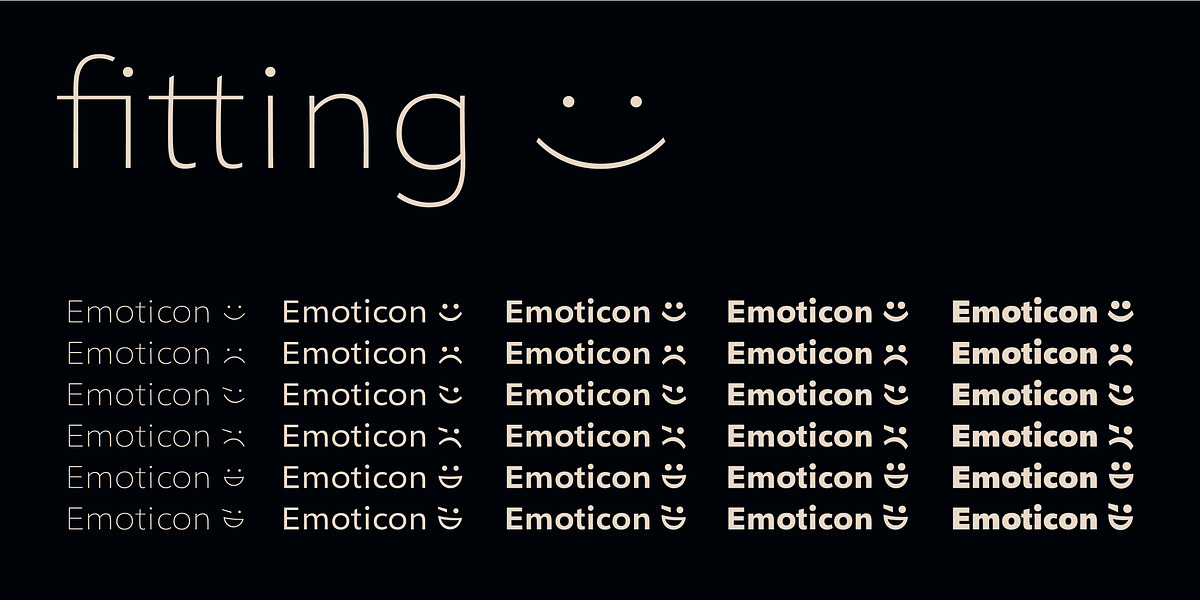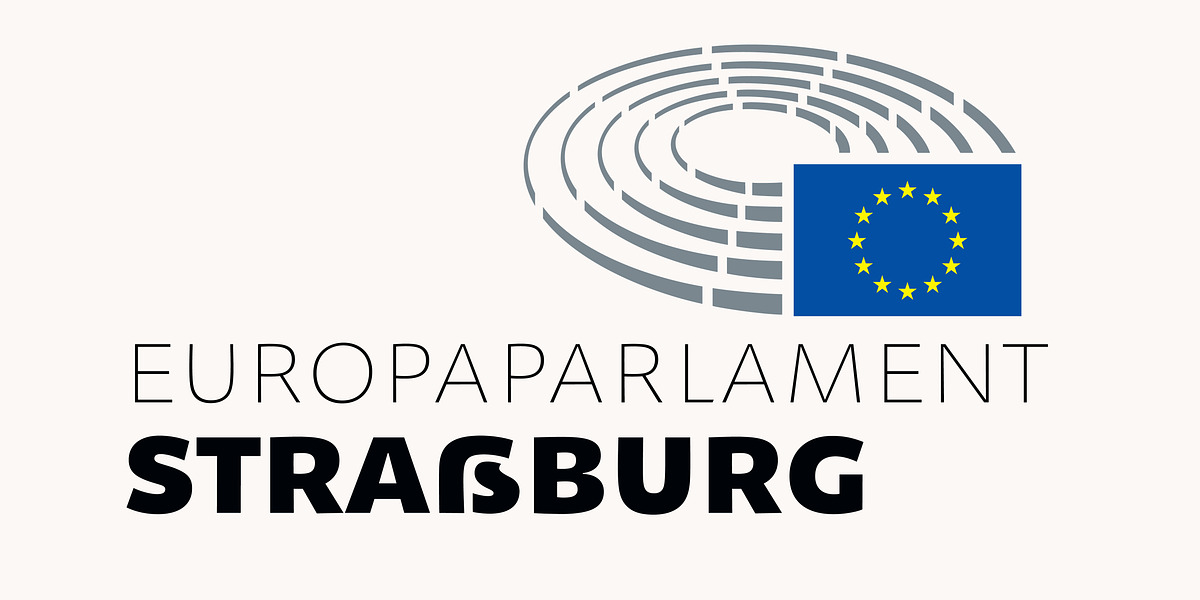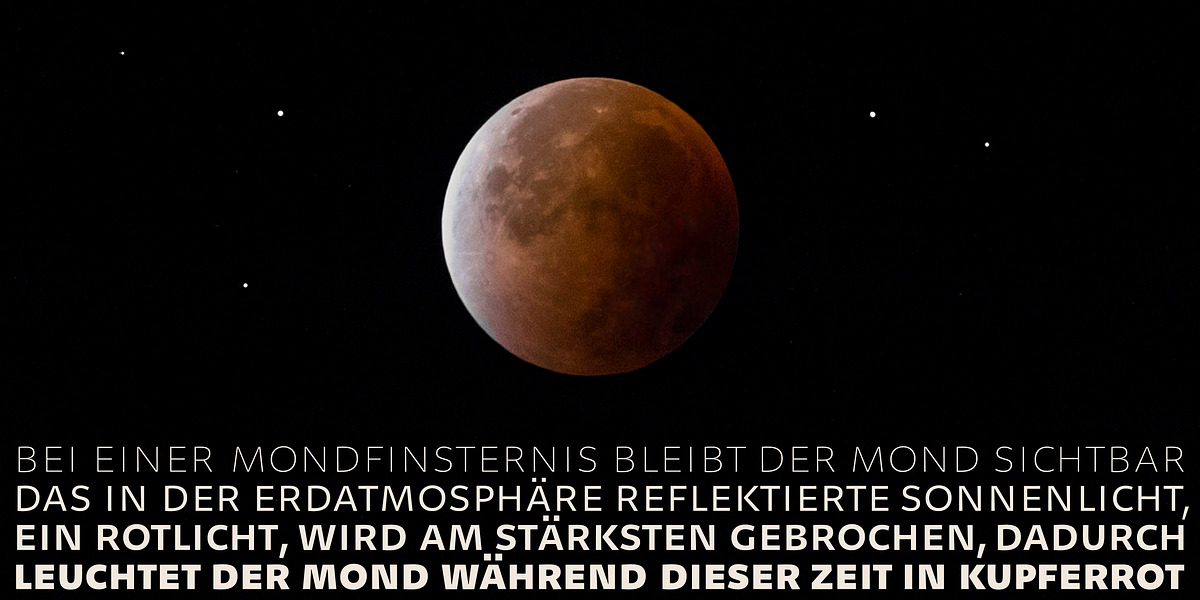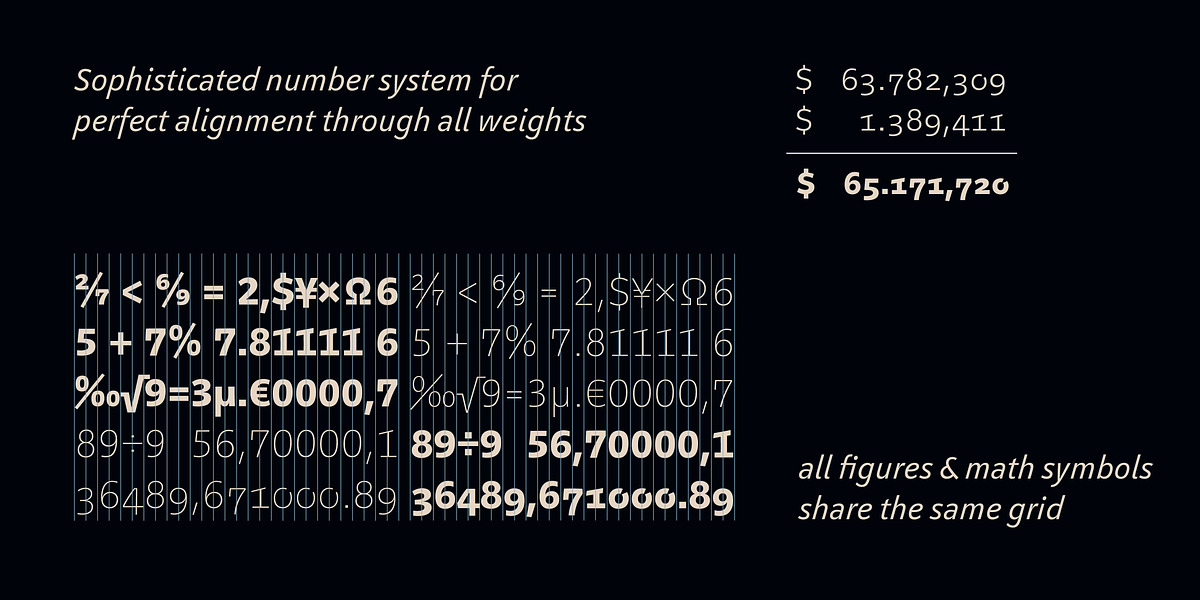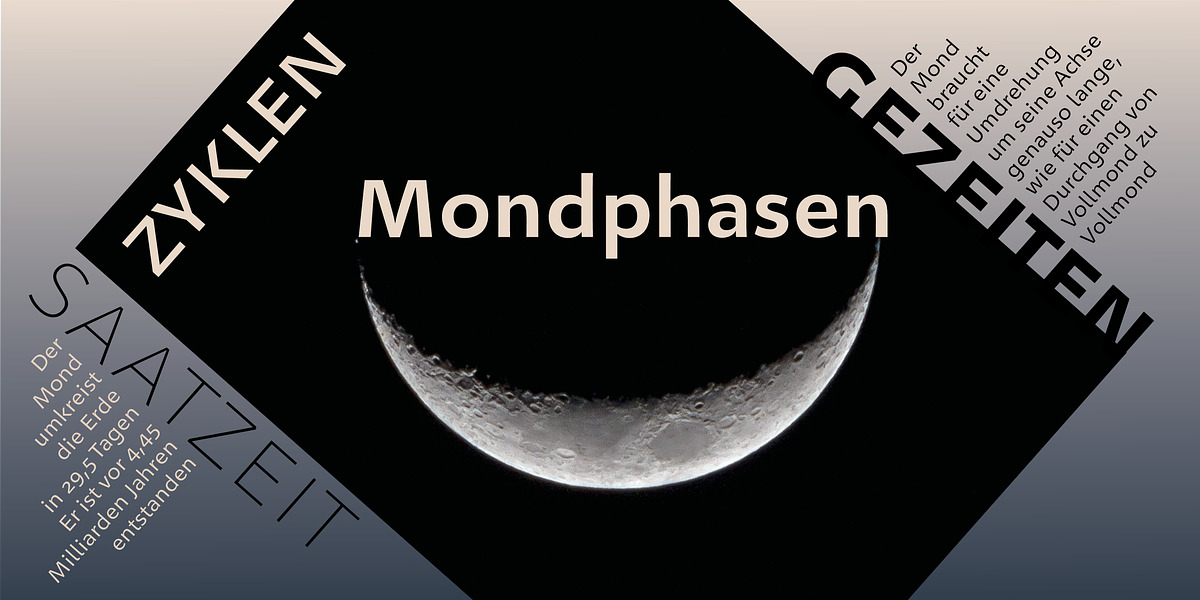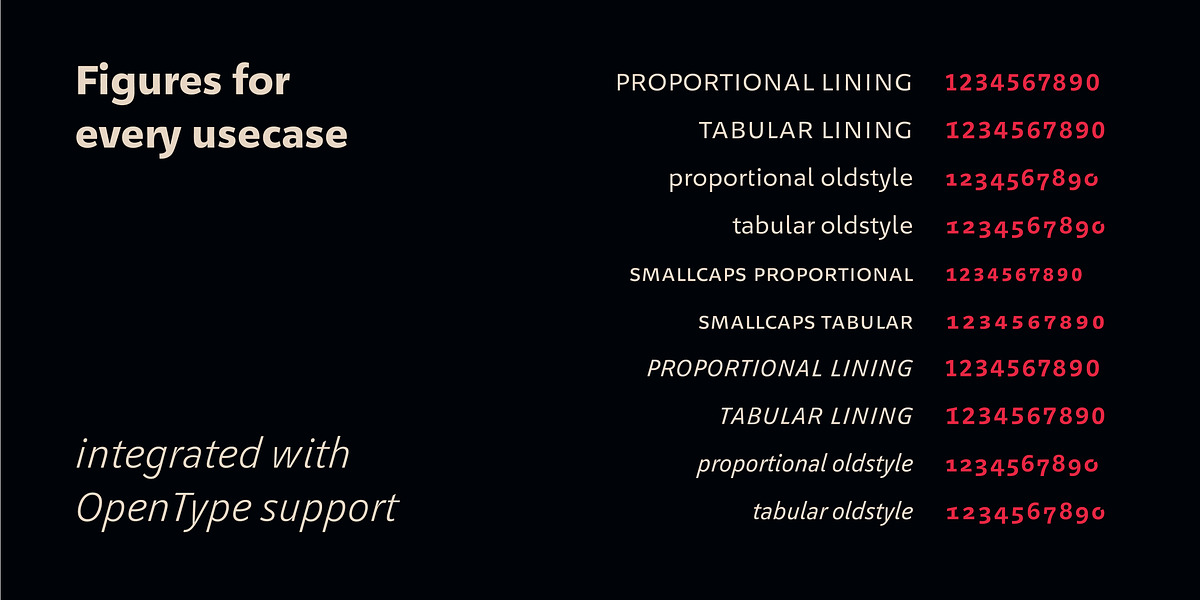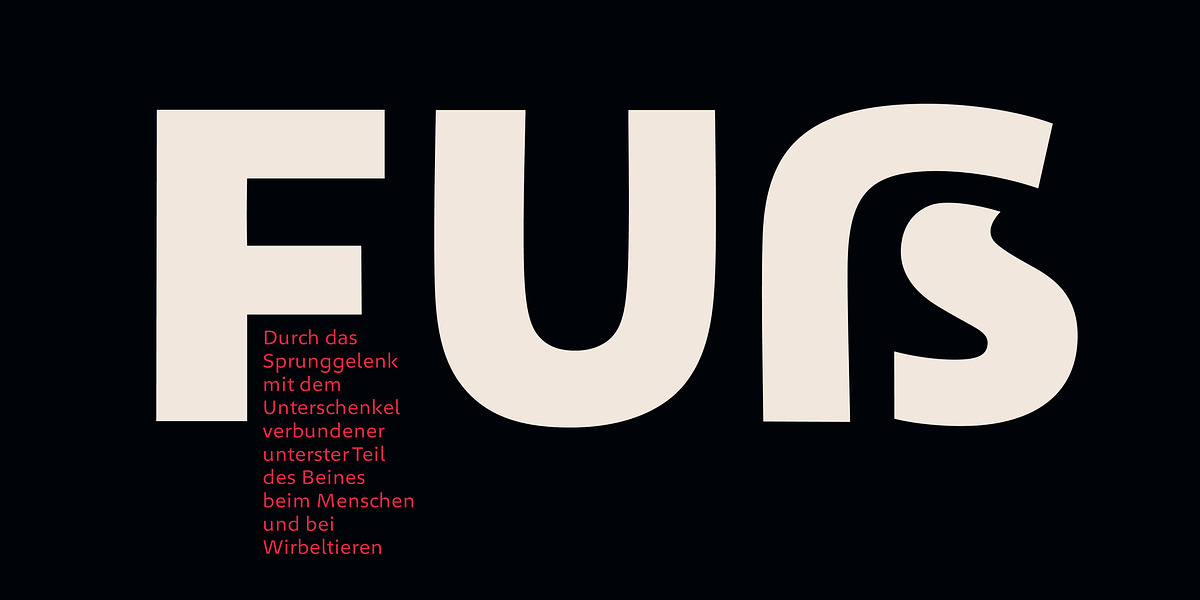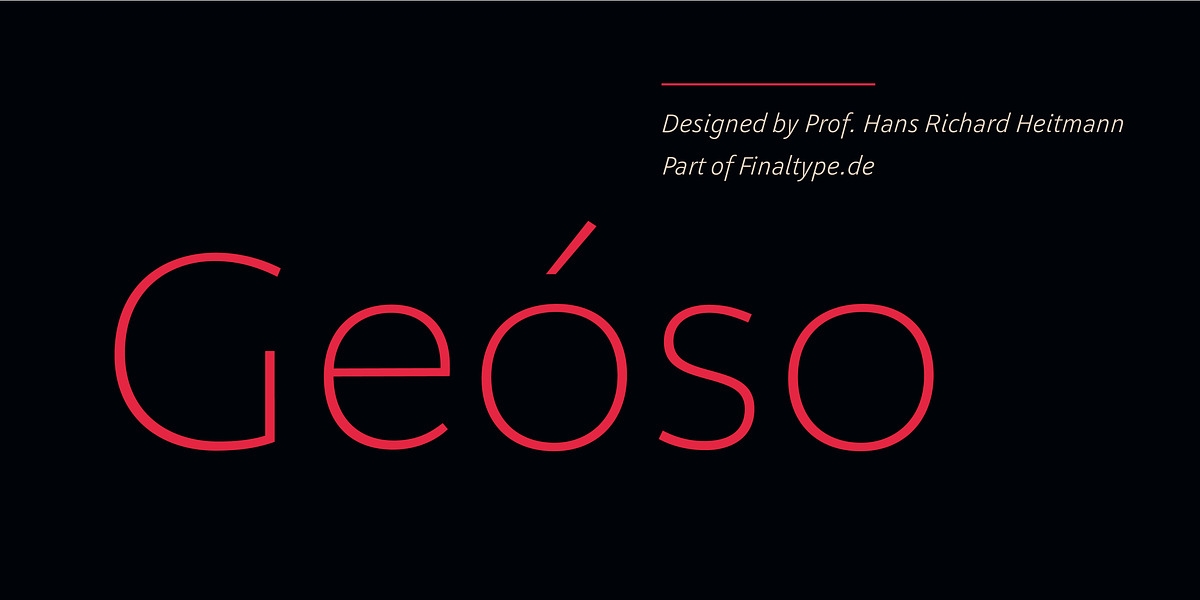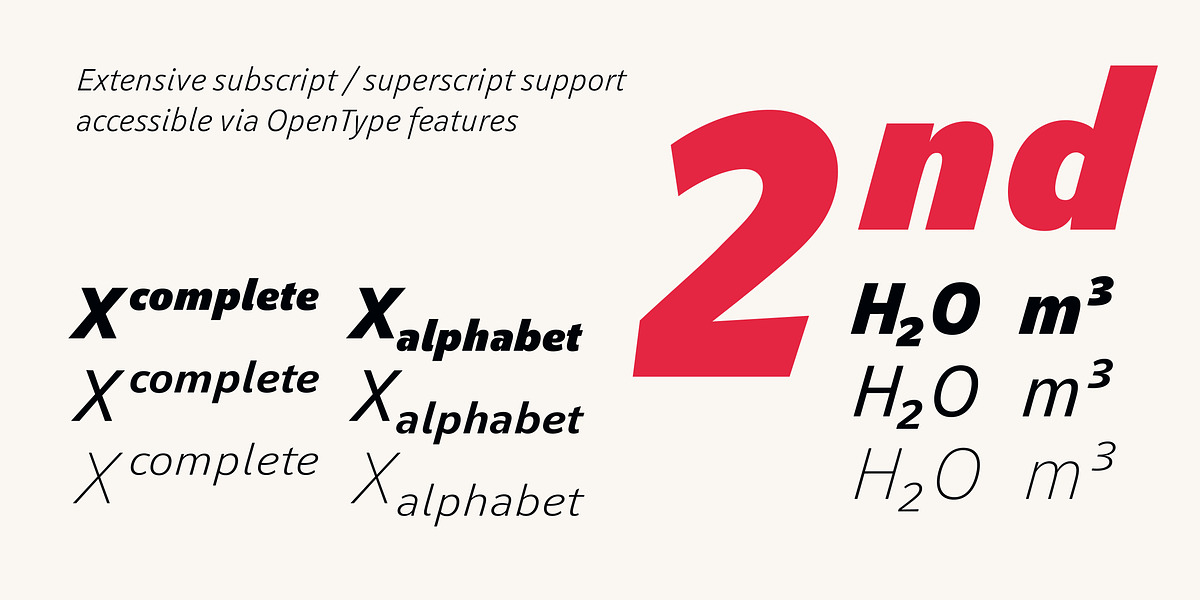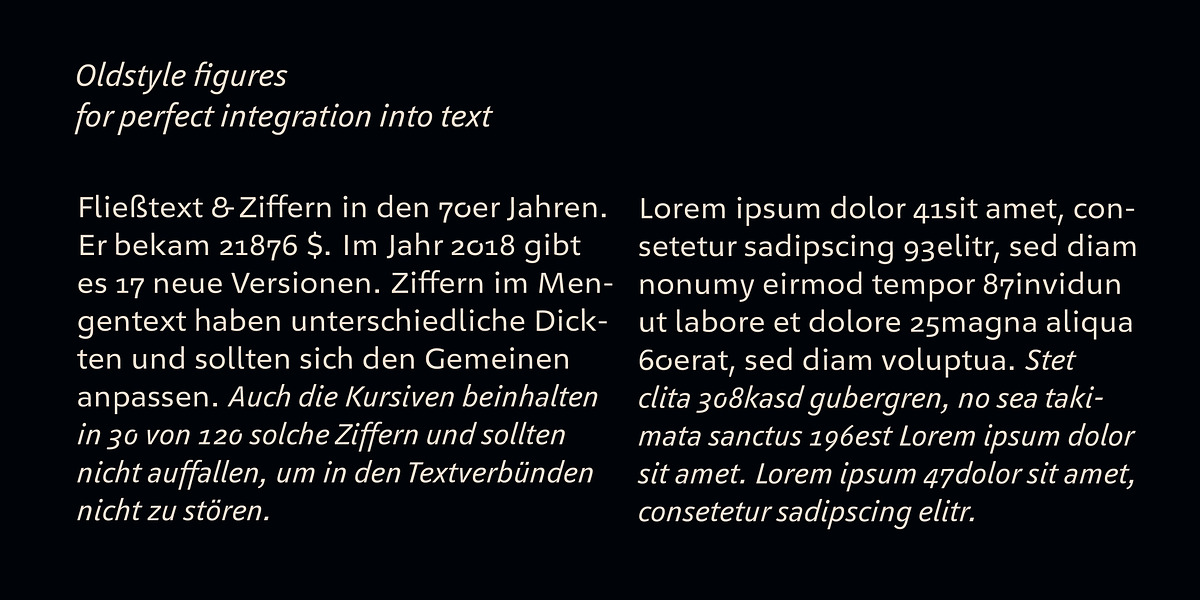
Geóso
Geóso is a humanist sans serif typeface characterized by its geometric influences. It features distinct italics and includes true small caps for added versatility. Designed for optimal readability at both small and large sizes, Geóso's spacing is based on studies of aesthetic perception and informed by the 30 years of experience of Prof. Hans R. Heitmann. The font also offers a uniwidth variation, further expanding its potential applications.